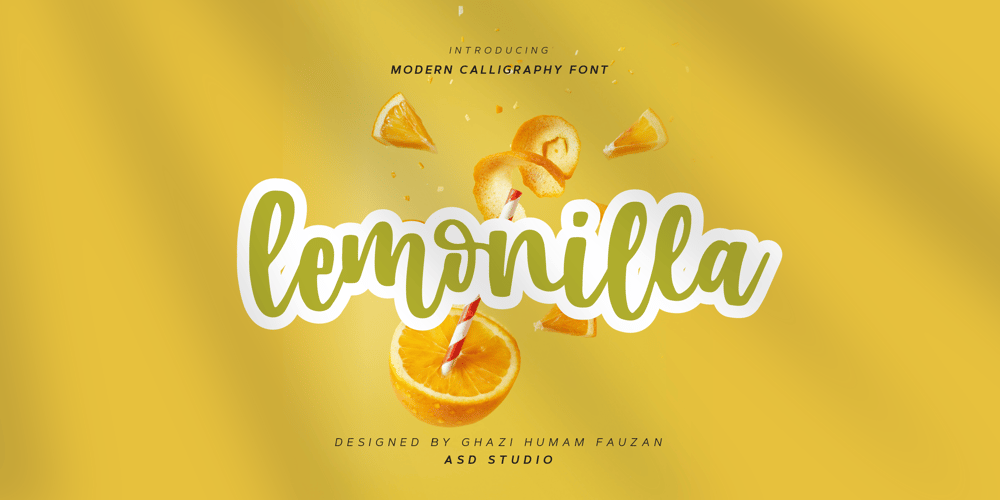
Lemonilla Font Family was designed by Ghazi and published by Asd Studio. Lemonilla contains 2 styles and family package options. Introducing Lemonilla by Asd Studio Lemonilla is a calligraphy font. Whatever the topic, this font will be a wonderful asset to your font library, as it has the potential to enhance any creation. What’s Included?:: Uppercase & Lowercase:: Numbers & Punctuation:: Multilingual Support Enjoy our font, thank you.